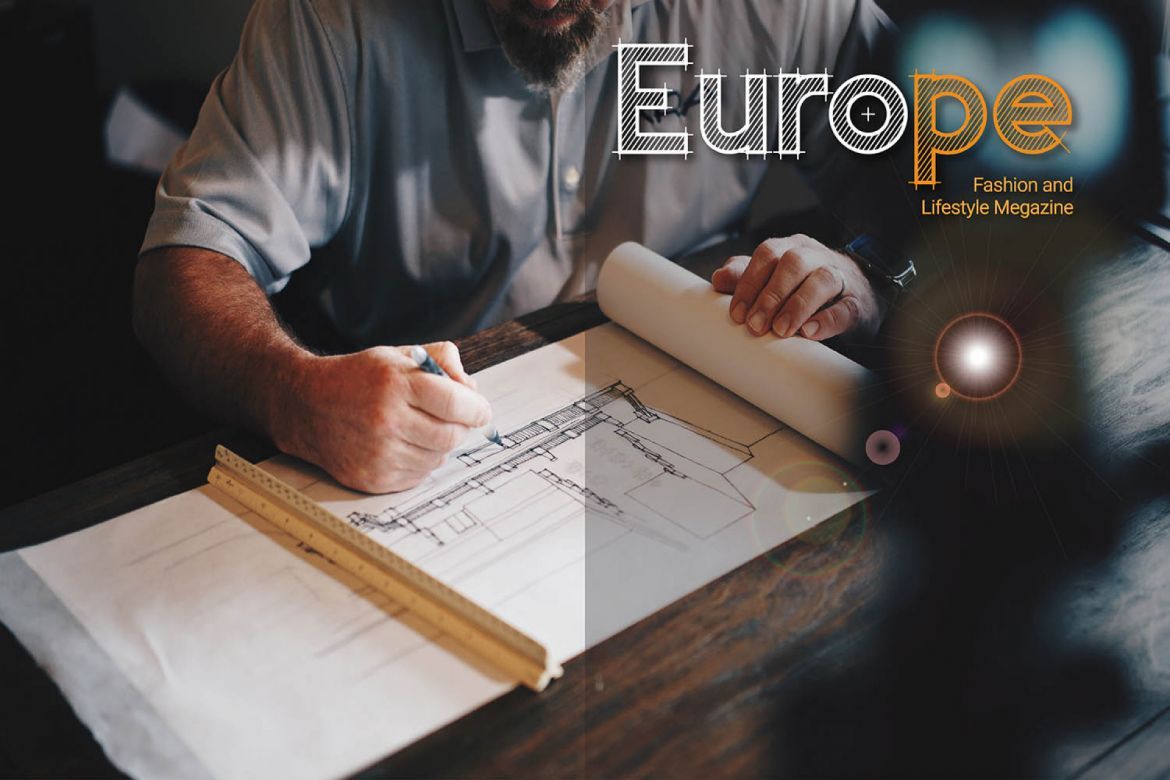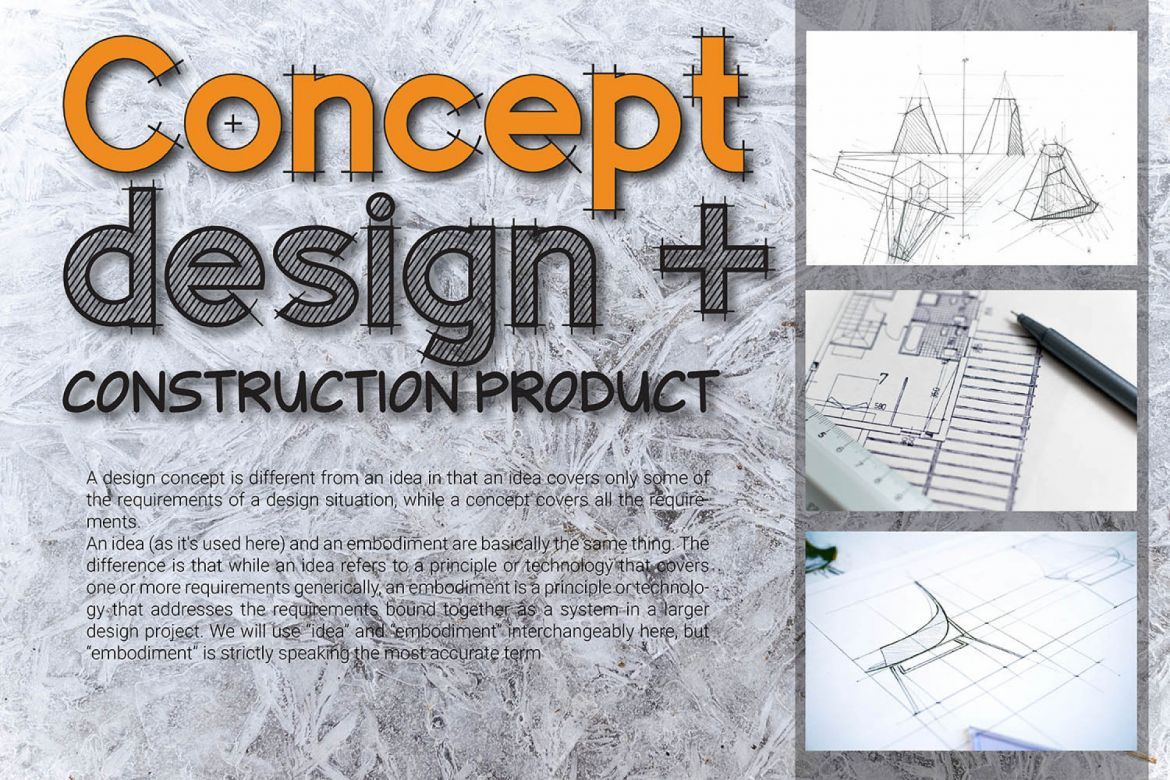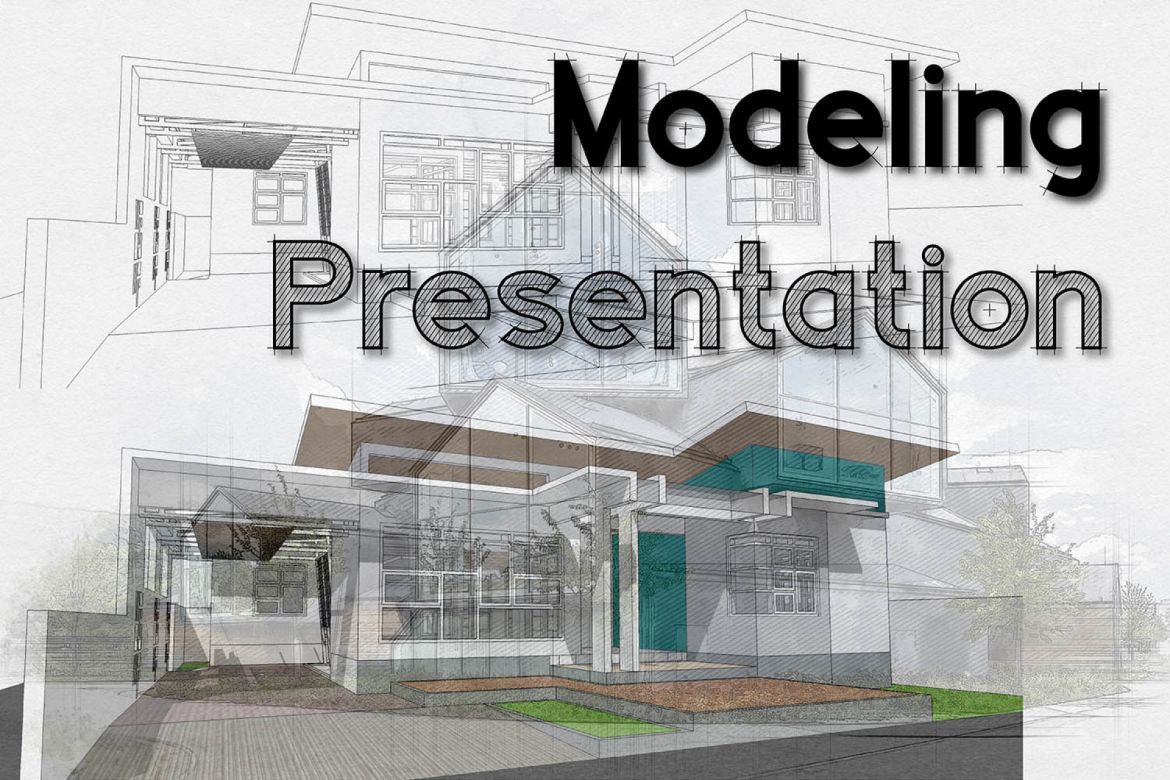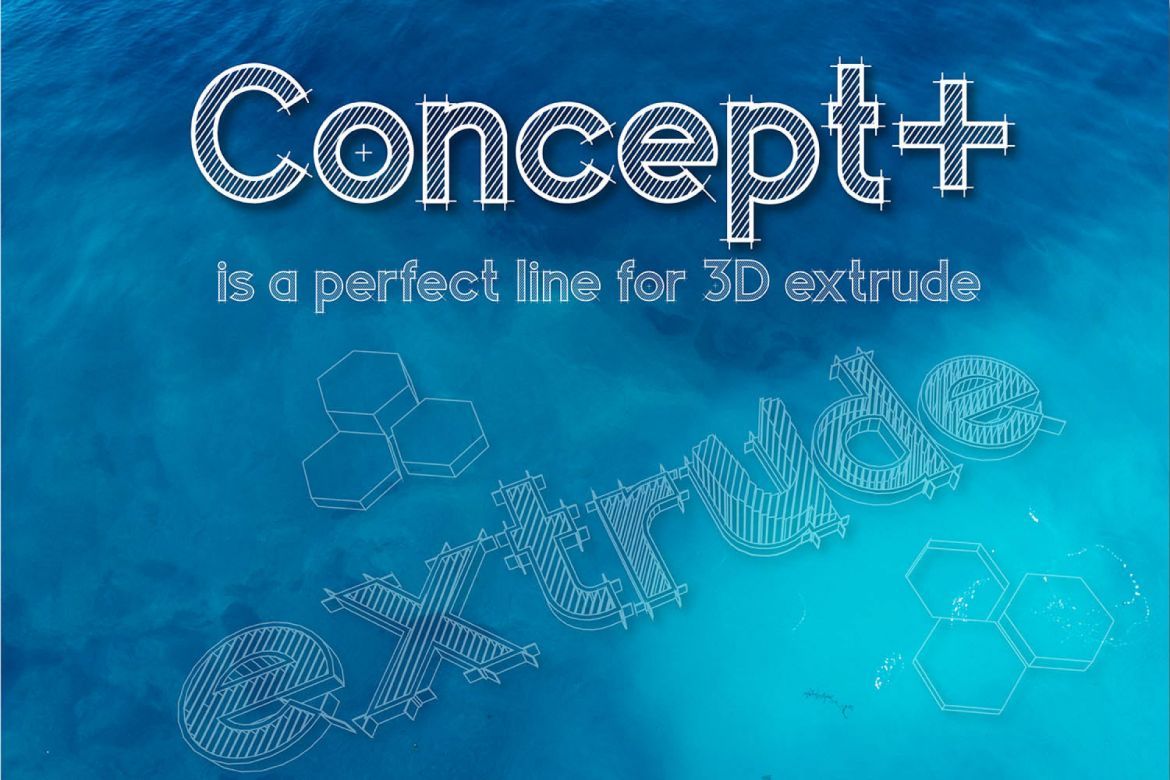
Concept Font Duo
Concept+ is a beautiful font with a sketch appeal, ideal for designs that need a handwritten and blue-print feel. This font is easy to read and looks great in a wide range of designs.
• two style
• unique font display